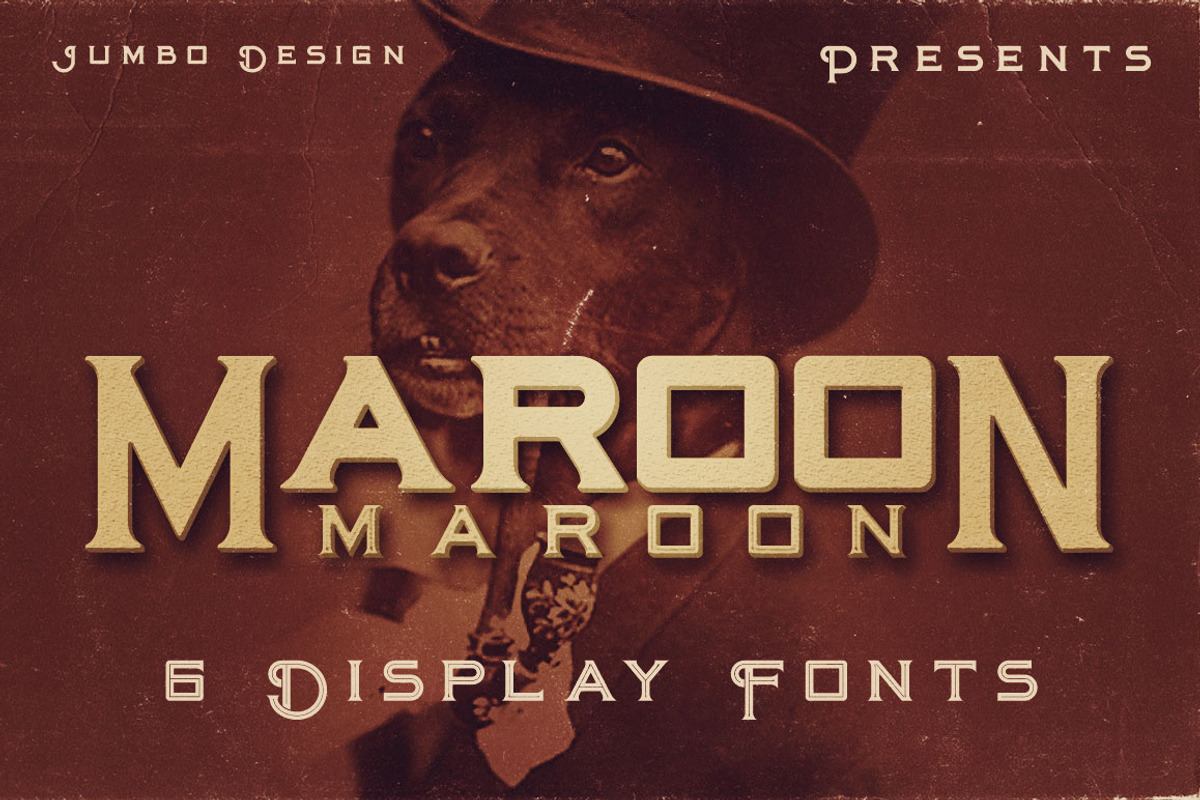
Capture the essence of classic design with Maroon – Vintage Style Font Free Download. This bold and timeless typeface draws inspiration from retro signage, old-school advertising, and handcrafted lettering—perfect for logos, product packaging, apparel, posters, and branding that craves a nostalgic yet powerful presence.
Maroon features strong serifs, bold curves, and a slightly condensed structure that gives your designs an authentic vintage vibe. It includes uppercase and lowercase letters, numerals, punctuation, and stylistic alternates—making it a great option for testing bold, heritage-inspired layouts.